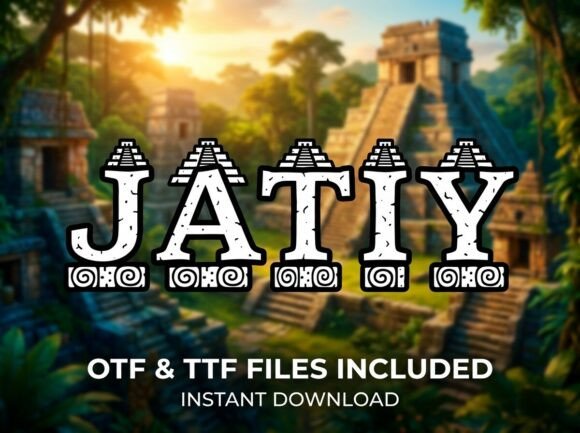
Jatiy: A Font That Evokes the Spirit of Ancient Exploration
For those seeking a typeface that embodies the essence of ancient discovery, Jatiy stands out as a powerful choice. This monumental display font is more than just a visual statement—it’s a gateway to the past, designed with the soul of an archaeological expedition in mind. Whether you're branding a jungle tour, crafting a game title, or designing a museum exhibit, Jatiy offers a unique blend of historical gravitas and modern impact.
The Design Philosophy Behind Jatiy
Jatiy was crafted to evoke the feeling of standing before a weathered stone monument, its surface etched with the stories of a lost civilization. The font’s bold slab-serif letterforms are meticulously shaped to resemble the rough textures of ancient stone blocks. Each character is imbued with a sense of age and endurance, making it ideal for projects that aim to convey history, mystery, and adventure.
One of the most striking features of Jatiy is the detailed silhouette of a Mayan stepped pyramid that sits atop each letter. This design element adds a layer of cultural and historical significance, transforming the font into a visual narrative. The pyramids are not just decorative; they serve as a reminder of the grandeur and complexity of ancient societies, inviting viewers to imagine the stories hidden within the stones.
Textures and Patterns That Tell a Story
Beyond the pyramid silhouettes, Jatiy incorporates rhythmic stone-carved textures and geometric tribal patterns along the base of each letter. These elements add depth and dimension, creating a tactile quality that feels almost real. The textures mimic the natural erosion of stone over time, while the patterns reflect the artistic traditions of indigenous cultures. Together, they create a rich visual language that speaks to both the past and the present.
This attention to detail makes Jatiy particularly effective in contexts where authenticity and storytelling are key. For example, in a historical adventure game, the font can be used to title levels or introduce characters, instantly setting the tone for an immersive experience. In museum exhibitions, it can be used for signage or promotional materials, helping to draw visitors into the world of ancient civilizations.
Applications Across Industries
Jatiy’s versatility makes it a valuable asset across multiple industries. For independent jungle tour operators, the font can be used to create eye-catching logos and marketing materials that immediately communicate the thrill of exploration. Its bold and dramatic appearance conveys a sense of adventure, making it perfect for branding campaigns that aim to attract travelers seeking unique experiences.
In the gaming industry, Jatiy is an excellent choice for titles that focus on historical or archaeological themes. Game developers can use the font to create splash screens, in-game menus, or promotional banners that capture the spirit of ancient expeditions. Its distinctive style helps differentiate games from others in a crowded market, offering a unique visual identity that resonates with players.
Museum curators and exhibition designers also benefit from Jatiy’s ability to convey historical significance. Whether used for exhibit titles, informational panels, or social media headers, the font adds a sense of authority and authenticity. It can be paired with other design elements to create cohesive visual themes that enhance the overall visitor experience.
Practical Benefits for Modern Workflows
Despite its intricate design, Jatiy is optimized for practical use in modern digital workflows. The font is available in multiple formats, including TrueType and OpenType, ensuring compatibility with a wide range of design software. Its scalable nature allows it to maintain clarity and detail at any size, making it suitable for both large-scale print projects and digital displays.
Designers who work with Jatiy often find that it simplifies the process of creating visually compelling content. The font’s strong presence reduces the need for additional graphic elements, allowing for clean and impactful designs. This efficiency is especially valuable in fast-paced environments where time and resources are limited.
Moreover, Jatiy’s distinct style can help brands stand out in competitive markets. In an era where visual differentiation is crucial, a font like Jatiy offers a unique opportunity to create a memorable brand identity. Whether used in print, online, or in multimedia projects, it consistently delivers a strong visual statement that aligns with the values of exploration and discovery.
Considerations for Choosing Jatiy
While Jatiy is an excellent choice for many projects, it’s important to consider how it will be used. The font’s bold and intricate design may not be suitable for all types of content. For instance, in body text or small-scale applications, it could appear overwhelming or difficult to read. However, when used as a display font—such as in headlines, logos, or titles—it shines brightly.
Its ability to blend historical elements with contemporary design makes it a versatile and meaningful choice. By choosing Jatiy, creators can tap into the universal appeal of ancient adventures, offering their audiences a visual experience that feels both authentic and engaging.